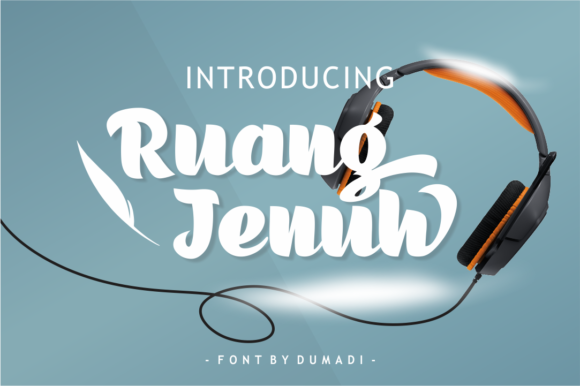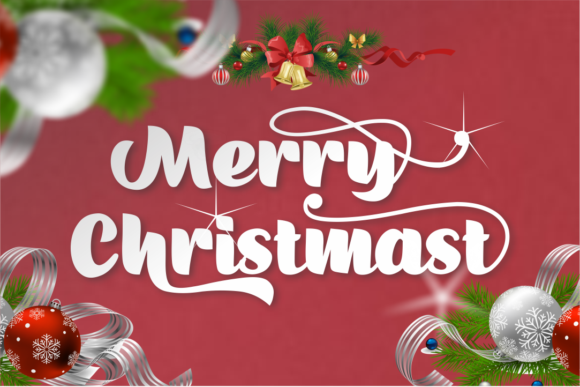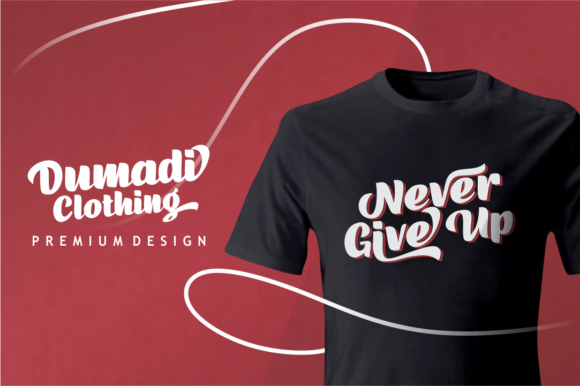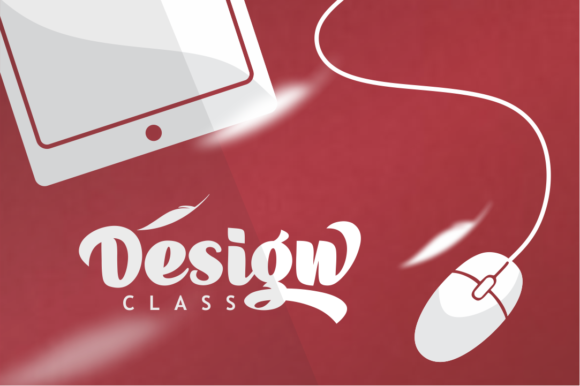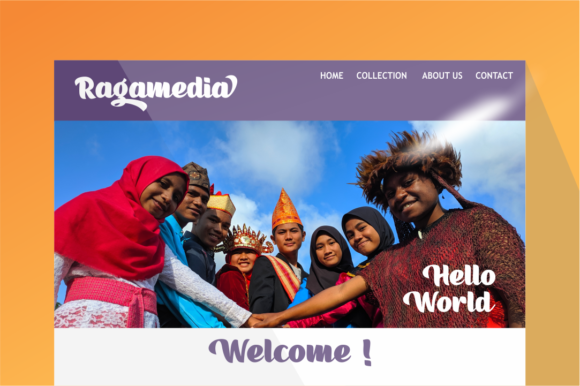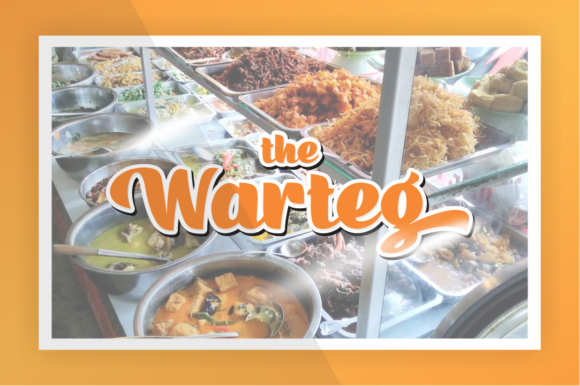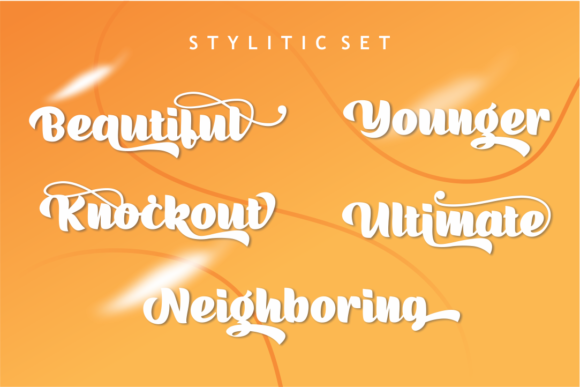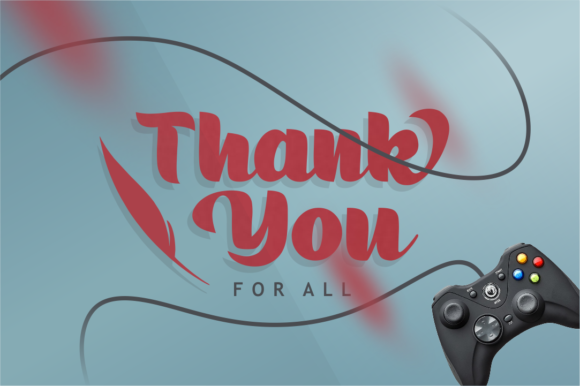
Ruang Jenuh Font
About Ruang Jenuh Font
Ruang Jenuh is a great handwritten font. It has a fresh style, perfect for branding, t-shirts, social media posts and much more!